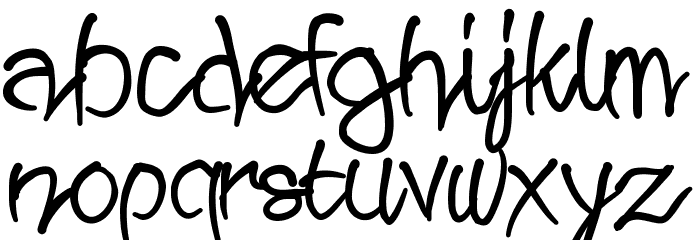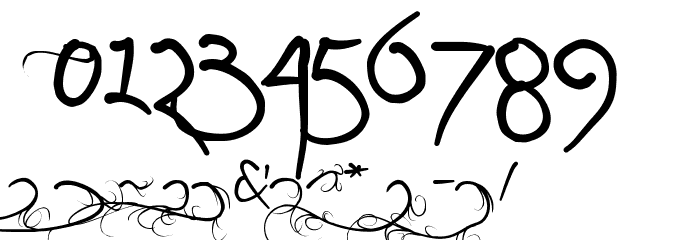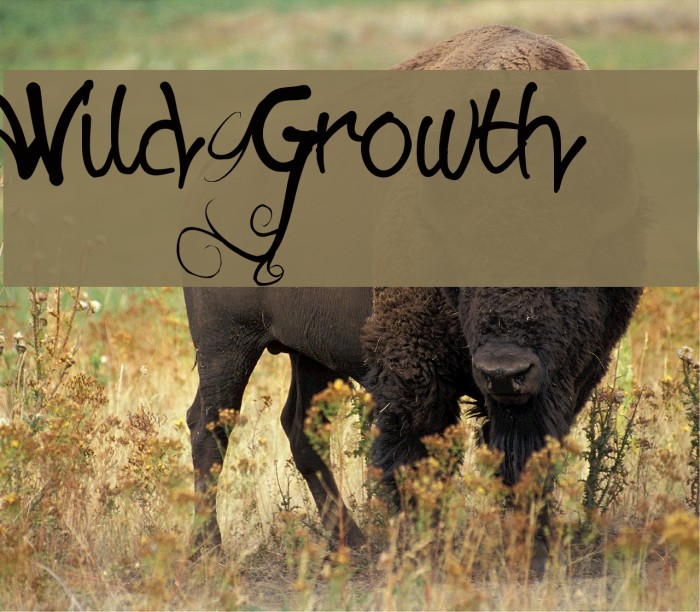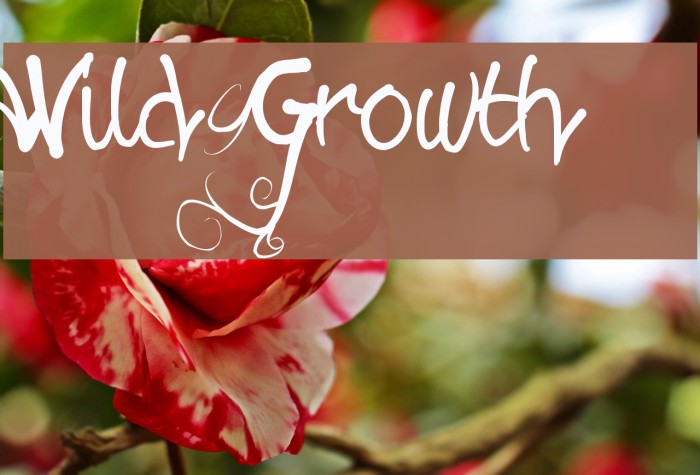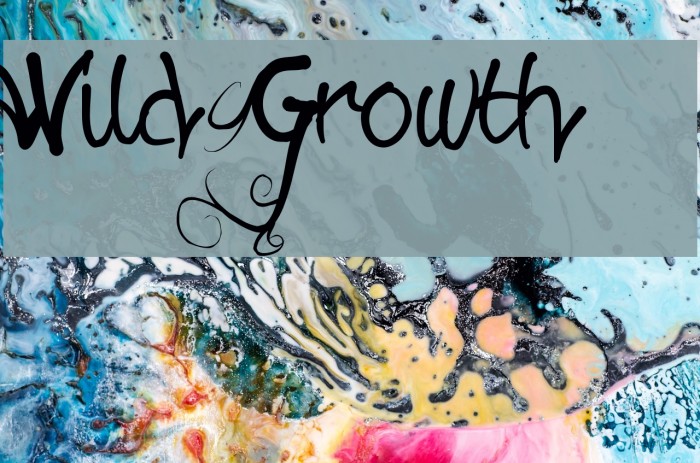
Wild Growth Font
This font features a dynamic and expressive style, characterized by its flowing, organic lines and intricate swirls. The uppercase letters are bold and dramatic, with a sense of movement that suggests growth and vitality. The lowercase letters maintain a consistent fluidity, complementing the uppercase with a slightly more restrained elegance. Numbers and special characters are integrated seamlessly, maintaining the font's overall whimsical and artistic feel. The decorative elements add a touch of fantasy, making it suitable for creative and imaginative projects.
A dynamic, expressive font with flowing lines and intricate swirls.
- Proposed Projects: Ideal for fantasy-themed designs, artistic posters, book covers, and creative branding.
- Use Case: Logos, Headlines, Artistic projects